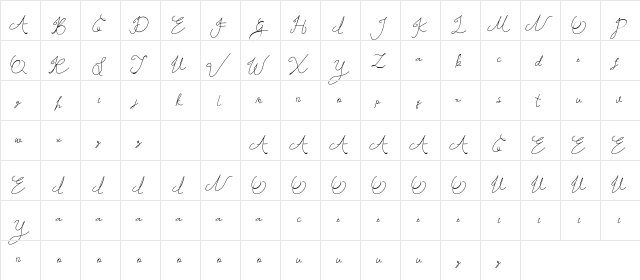
Sheira DEMO Regular
| Foundry | edric studio |
| Designer | Saila |
Design Context for Sheira DEMO Typeface
Sheira DEMO is a composed and adaptable typeface that performs quietly and consistently across a wide range of design contexts.